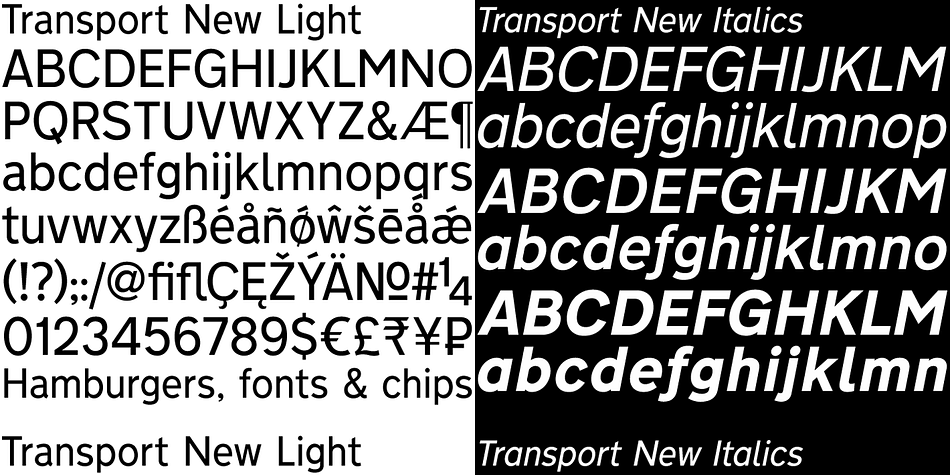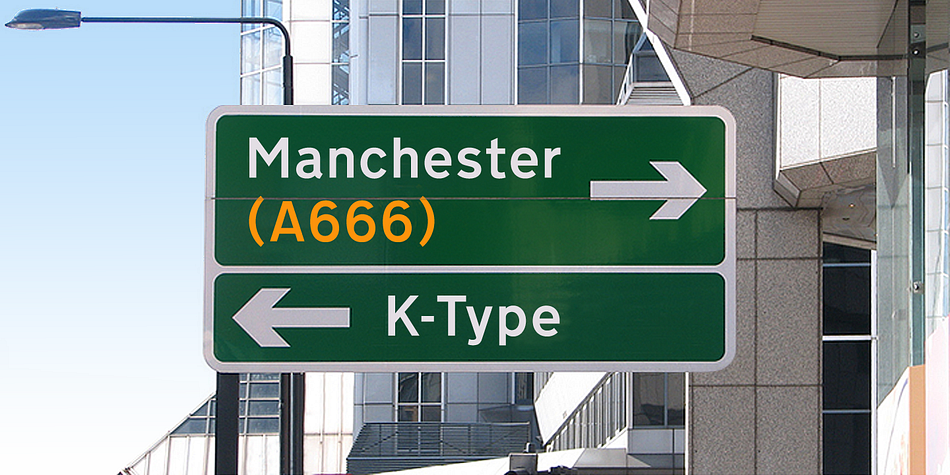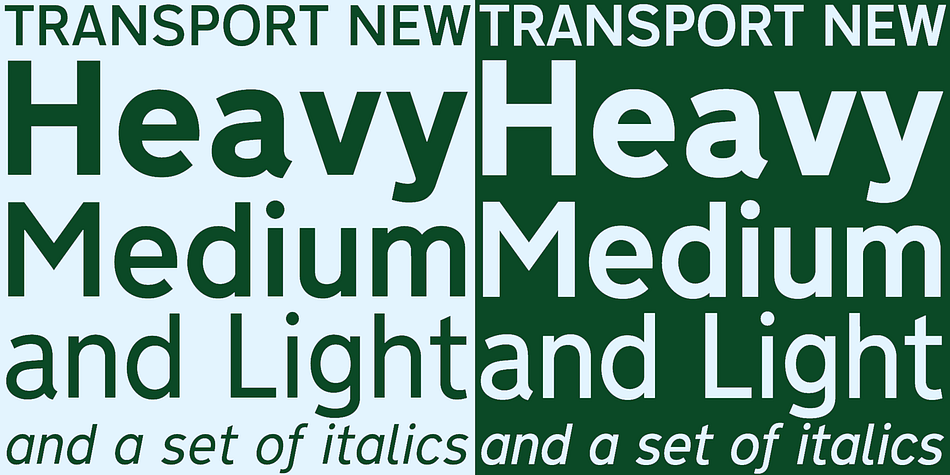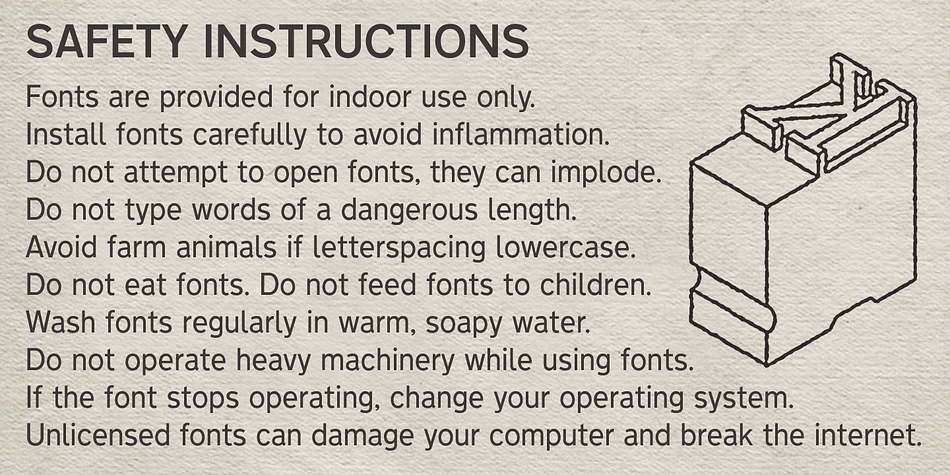
Transport New is a sans serif font family. This typeface has six styles and was published by K-Type.
K-Type TRANSPORT NEW has been improved and expanded:
• Numerous outline and spacing refinements
• Full complement of Latin Extended-A characters
• Additional Italic fonts for all three weights
K-Type’s redrawing of the UK Transport font originally designed for British road signs by Jock Kinneir and Margaret Calvert beginning in 1957 and first published on the Preston bypass in 1958.
In addition to the familiar Heavy and Medium weights, Transport New revives the previously unreleased Light weight font, originally planned for back-lit signage but never actually applied.
The starting point for the typeface was Akzidenz Grotesk, the prototype modern sans which also provided a model for Helvetica and Univers. Some features were imported from Johnston’s Underground type – the curled foot of the lowercase L and the pointed middle of the uppercase M for instance. Designed to eliminate confusion between characters and increase legibility, they also help to give Transport a British flavour.
The original Transport font has subtle eccentricities which add to its distinctiveness, and drawing the New version has involved walking an impertinent tightrope between eliminating awkwardness and maintaining quirkiness. Transport New wouldn’t be the first typeface to have overstepped the mark and gone bland.
So, K-Type’s version includes cheeky but delicate refinements - shortening the uncomfortably close terminals of characters such as 5, 6, C, G, and e, tucking in the protruding lower terminals of S and s, improving proportions by narrowing overly wide glyphs like the number 4, and slightly opening up some claustrophobic counters. The question mark is made nicer, and parentheses are less chunky – slimmer than letters and numbers. The x height is edged fractionally even taller. New characters such as the Euro symbol have been added, along with many accented characters for Welsh and continental European use.